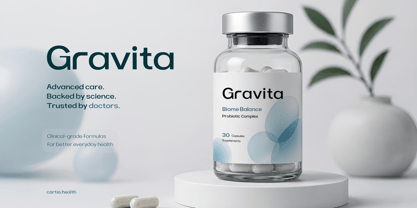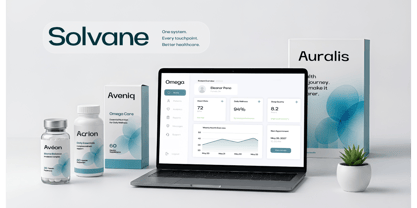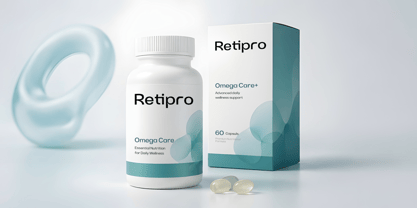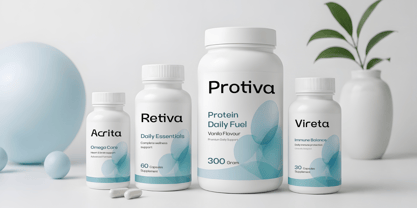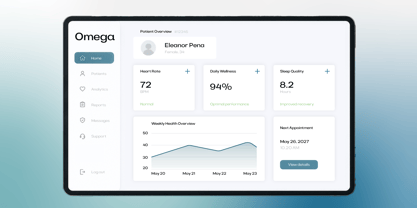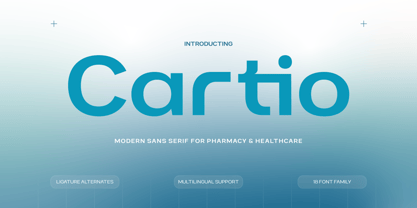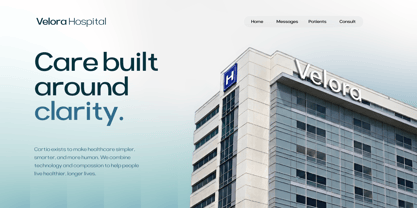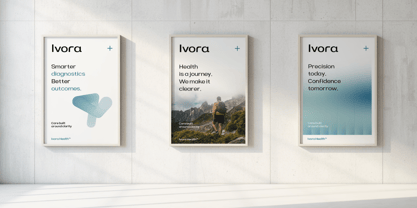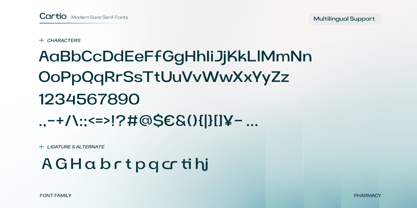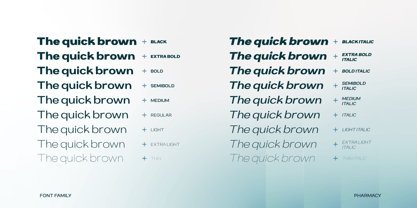
Cartio
by Product Type
The Cartio Font Family was designed by Lita Faolina and published by Product Type. Cartio contains 18 styles and family package options. More about this family
Cartio - Sans Serif Font for Pharmacy is a modern sans serif typeface created to deliver a clean, professional, and trustworthy appearance for healthcare and pharmacy industries. Featuring minimalist letterforms, precise proportions, and a refined visual structure, this font creates a premium modern identity perfect for contemporary medical branding. Its elegant yet approachable style helps brands communicate reliability and clarity across digital and print media.
This typeface is perfect for pharmacy branding, healthcare websites, medical packaging, corporate presentations, healthcare dashboards, and modern health-tech products. The strong readability and balanced design make Cartio highly effective for headlines, logos, UI/UX interfaces, and professional visual communication.
Featuring 18 font styles, ligature alternates, multilingual support, and a versatile sans serif system, Cartio offers excellent flexibility for modern healthcare design projects. Its combination of minimalist aesthetics and corporate professionalism makes it an ideal choice for medical brands, health-tech startups, and premium pharmacy businesses.